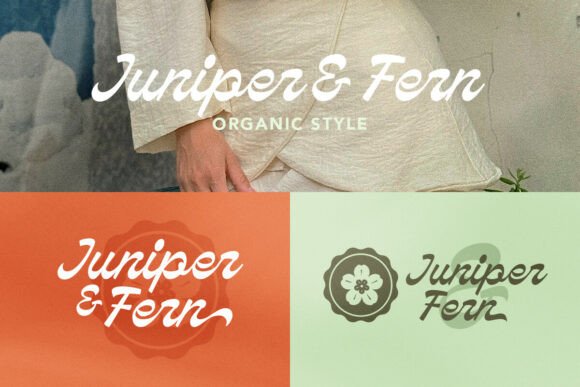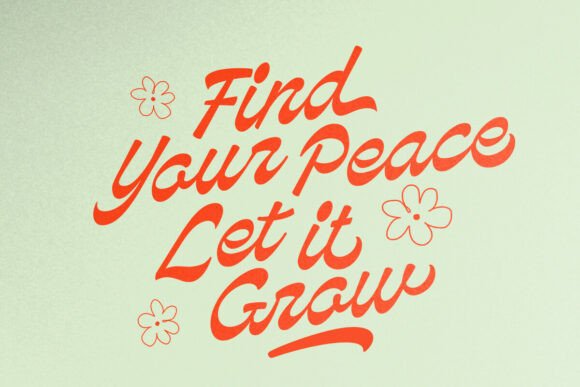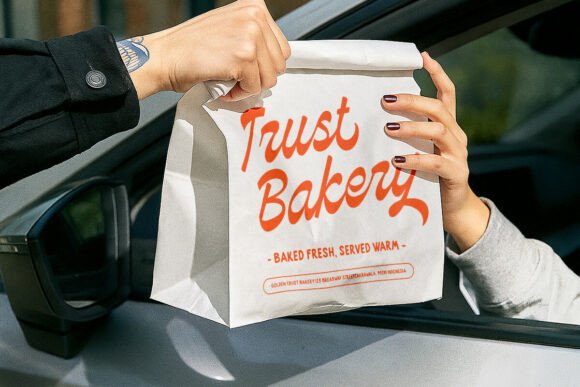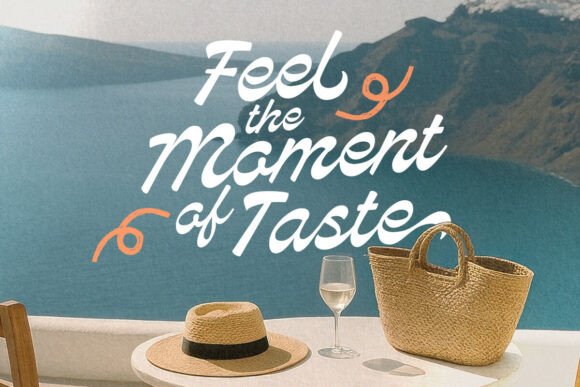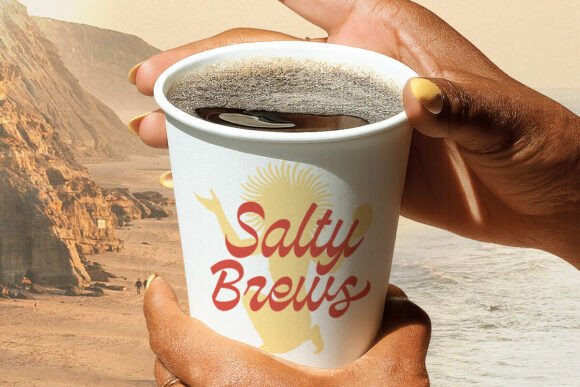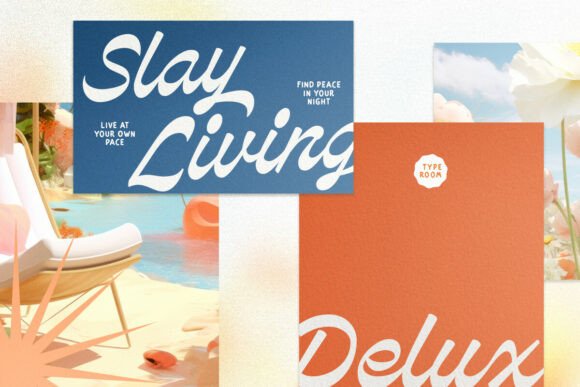
Introducing Crudents Font: A Bold Display Script with a Retro Twist
Are you on the hunt for a font that adds a touch of elegance and sophistication to your design projects? Look no further than Crudents Font, a bold display script with a unique twist. This stunning font features slightly reversed contrast looks, making it perfect for a variety of applications, from logotypes and quotes to branding and wedding invitations.
What Makes Crudents Font Stand Out?
Crudents Font is a true showstopper, with its bold and eye-catching design. The slightly reversed contrast looks give it a distinctive retro and vintage feel, making it ideal for old poster themes and other design projects that require a touch of nostalgia. Whether you’re looking to create a statement piece or add a touch of whimsy to your design, Crudents Font is the perfect choice.
One of the best things about Crudents Font is its versatility. This font can be used for a wide range of applications, including:
- Logotypes: Create a bold and memorable logo for your brand with Crudents Font.
- Quotes: Add a touch of elegance to your quotes and sayings with this beautiful font.
- Branding: Use Crudents Font to create a cohesive brand identity that stands out from the crowd.
- Wedding Invitations: Add a touch of sophistication and romance to your wedding invitations with this stunning font.
- Old Poster Themes: Create vintage-inspired posters and advertisements with Crudents Font.
Alternatives and Underlines Galore
Crudents Font also comes with a range of alternatives and underlines, giving you even more flexibility and creative freedom. With these additional features, you can mix and match different styles to create a truly unique look that reflects your brand or personal style.
Whether you’re a designer, crafter, or DIY enthusiast, Crudents Font is the perfect addition to your font collection. With its bold and eye-catching design, versatility, and range of alternatives and underlines, this font is sure to take your design projects to the next level.
Tips for Using Crudents Font
Key Features of Crudents Font
- Bold display script with slightly reversed contrast looks
- Retro and vintage-inspired design
- Perfect for logotypes, quotes, branding, wedding invitations, and old poster themes
- Range of alternatives and underlines